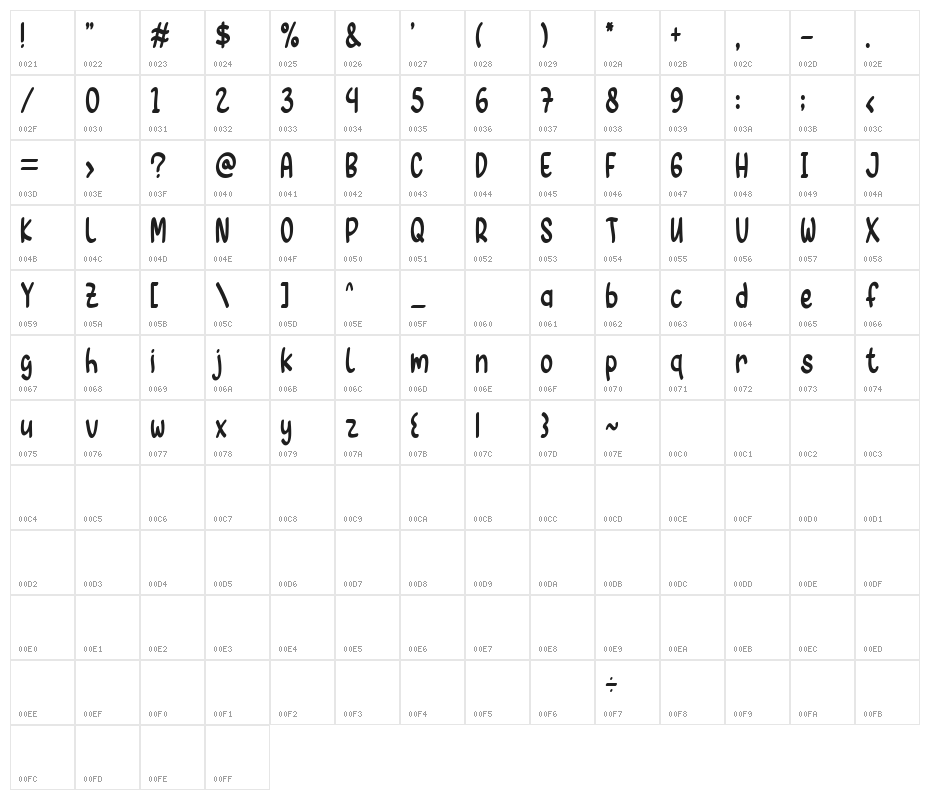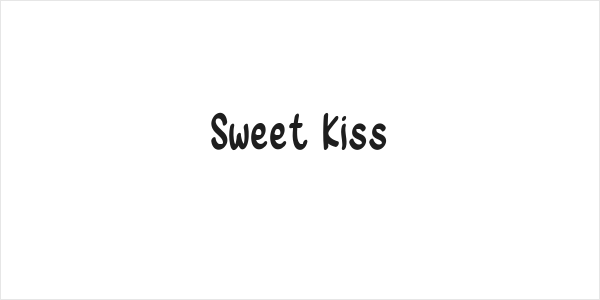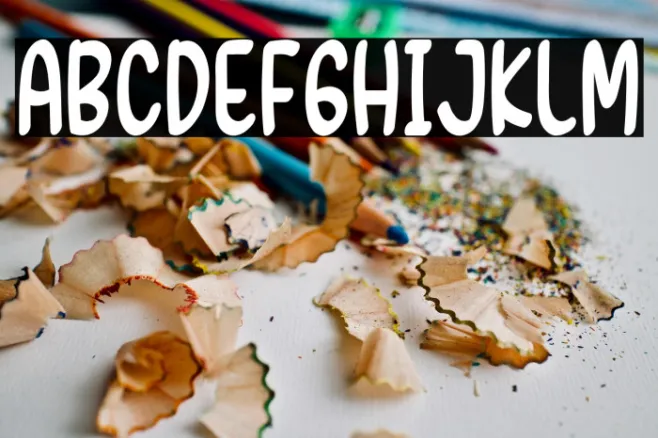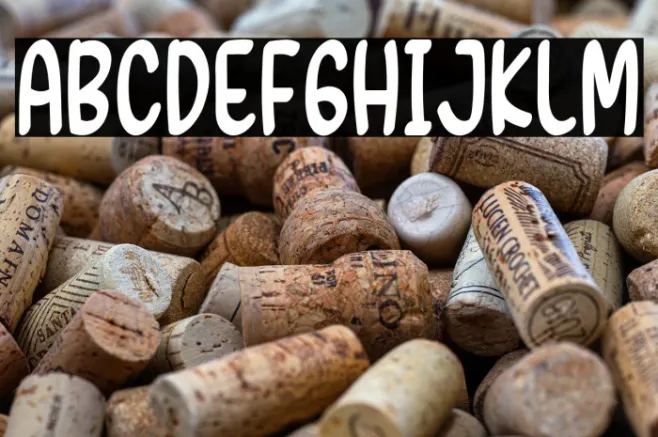
Sweet Kiss Font
Sweet Kiss Description
This playful and whimsical font features rounded, bold characters with a hand-drawn appearance. The letters are slightly irregular, adding a charming and casual feel. The uppercase and lowercase letters maintain a consistent style, with smooth curves and a friendly demeanor. Numbers and special characters are crafted with the same playful touch, making them ideal for informal and fun designs. The font's overall look is approachable and lively, perfect for projects that require a personal and engaging touch.